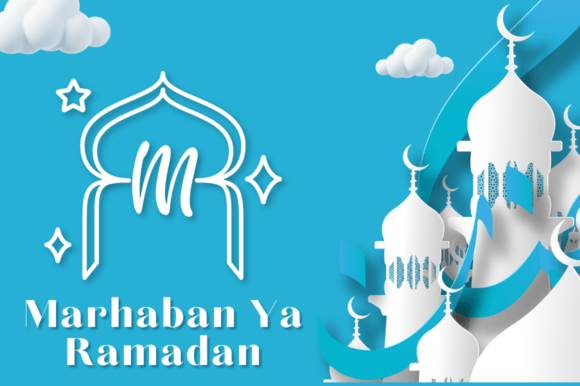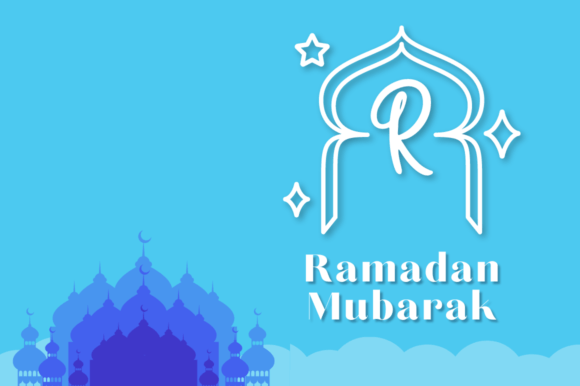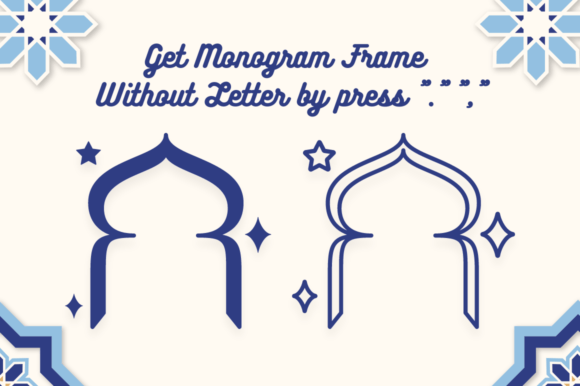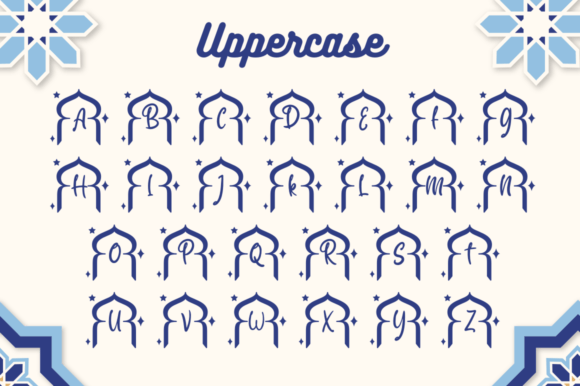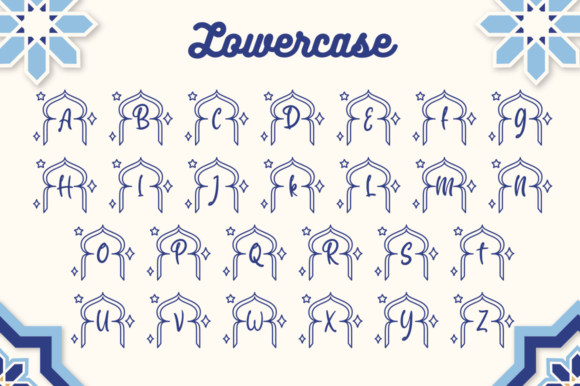
Introduction to Rida Ramadan Monogram Font
Rida Ramadan Monogram font is a typeface that is designed with a Ramadan theme in mind.
Rida Ramadan Monogram font is characterized by its elegant and stylish design, with clean lines and a modern aesthetic It is suitable for use in a variety of contexts, including invitations, cards, branding materials, and other design projects.
Key Features of Rida Ramadan Monogram Font
Why Choose Rida Ramadan Monogram Font?